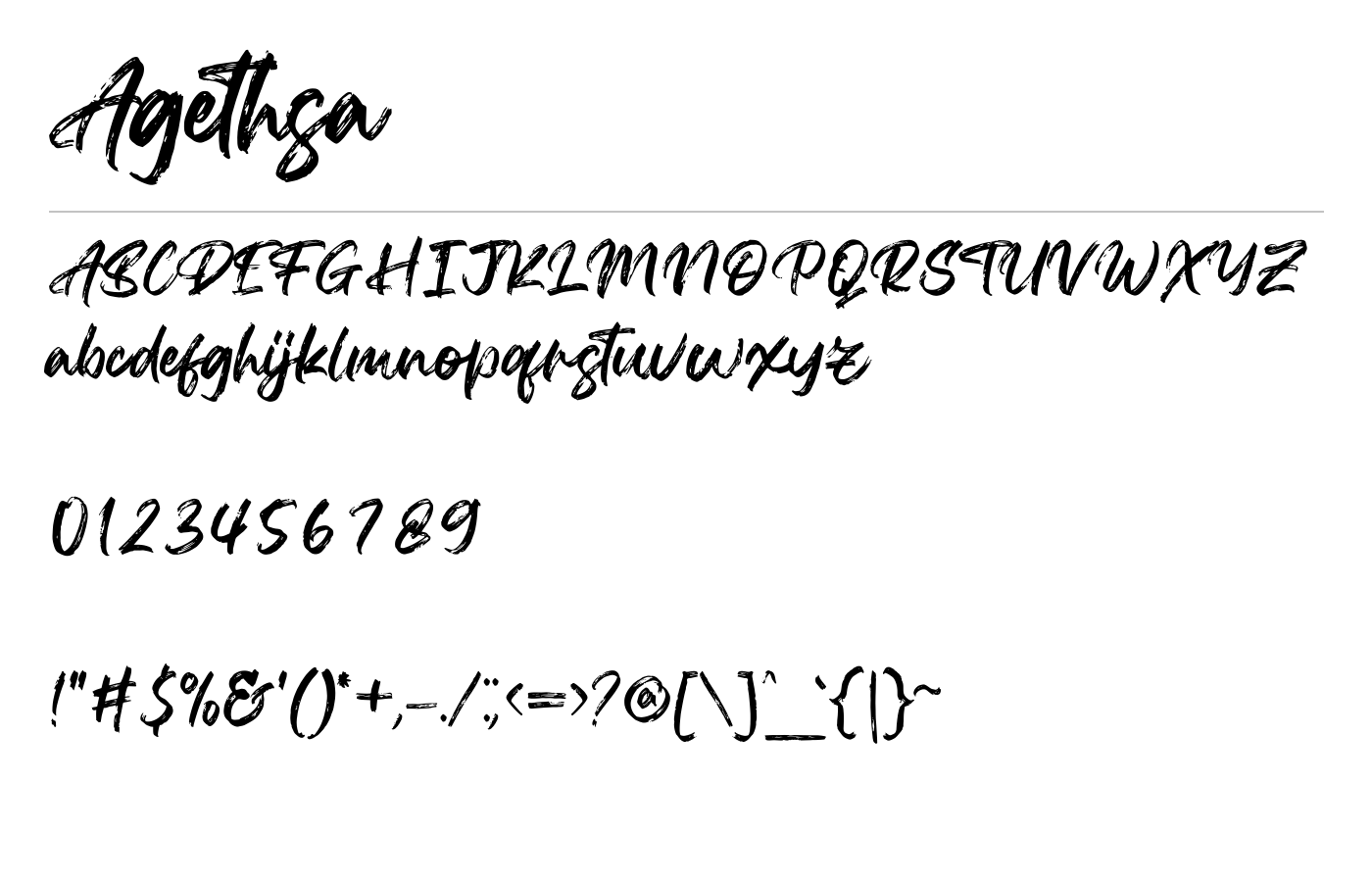
Agethsa is a bold, brush script font that captures a lively and artistic vibe with its textured, hand-painted strokes. Its energetic letterforms and casual style make it perfect for creative branding, posters, and social media graphics where a personal, expressive touch is desired. This font shines when used for eye-catching headlines or logos that need to convey a fun and dynamic personality.
Agethsa Font
About Agethsa Font
| Font family | Agethsa Font |